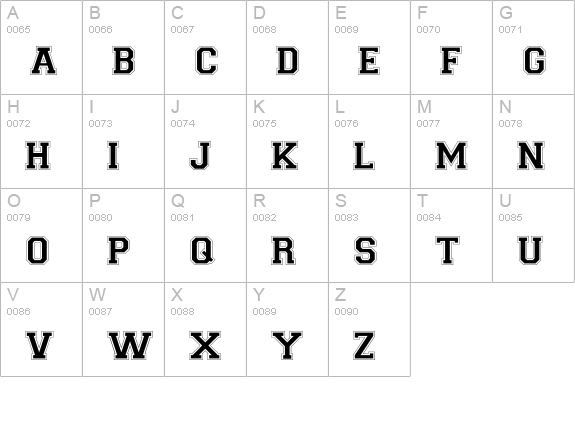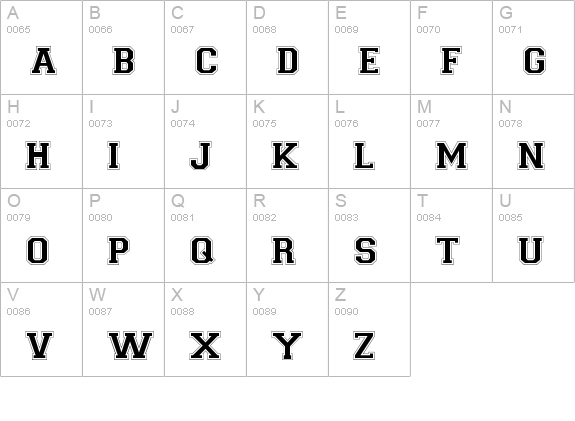
Hillman Font Details
Hillman font is a modern and stylish typeface that exudes sophistication and elegance. With its clean lines and sleek design, Hillman is perfect for a wide range of design projects, from branding to editorial work. This versatile font is sure to make a statement and add a touch of class to any project. The best part about Hillman font is that it is free to download at FontsMarket.com. You can easily access this beautiful font and use it in your designs without any cost. Whether you are a professional designer or just starting out, Hillman font is a great addition to your font collection. Download it today and elevate your design projects with this stunning typeface.